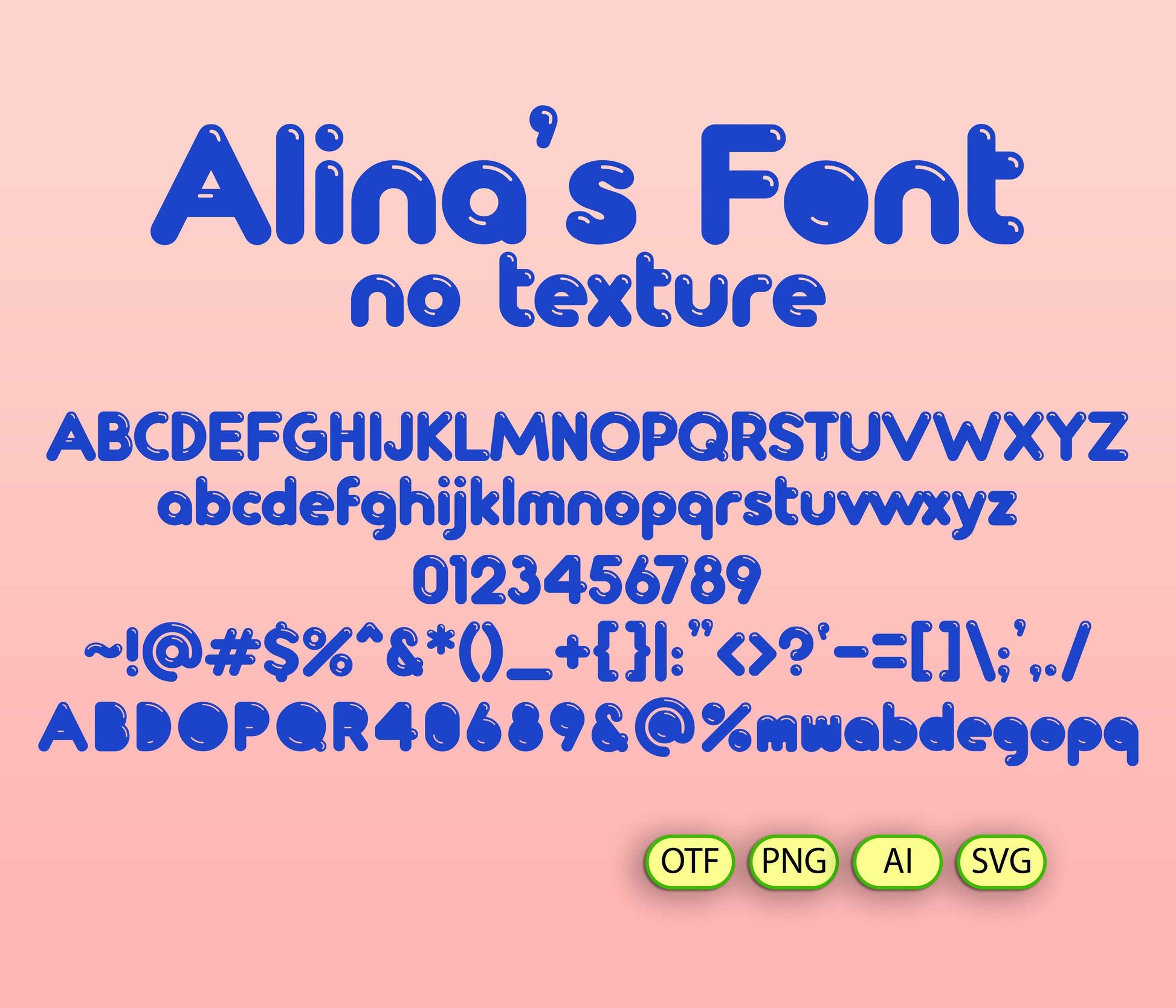
Tuneful Toddler Tales Font
Step into the vibrant, musical world of animated youngsters and their catchy educational journeys with our specially designed font. This typeface embodies the spirit of a hugely popular children's content series that has enchanted young viewers across the globe. Ideal for early childhood educators, parents, and content creators focusing on preschool-aged children, this font infuses the cheerful, melodic essence of sing-along learning into your projects.
What is the Tuneful Toddler Tales font?
Our font is a visual celebration of the bright, bouncy aesthetic that characterizes this beloved animated series. It features round, bubbly letterforms that appear to bounce and sway, as if moving to the beat of a children's song. Each character radiates a perfect mix of playfulness and clarity, perfect for projects aimed at engaging and educating young children through visual appeal.
What You Can Do With Tuneful Toddler Tales Textured Font
This versatile font is suitable for a wide array of creative applications:
- Children's Birthday Invitations: Design delightful invites for toddler birthday parties and playdates.
- Educational Materials: Create worksheets, flashcards, and learning resources for preschoolers.
- Digital Content: Enhance websites, apps, and videos aimed at young children with eye-catching text.
- Merchandise Design: Develop appealing T-shirts, backpacks, and accessories for young fans of the show.
- Nursery Decor: Ideal for wall art, growth charts, and personalized room decorations.
- Children's Books: Perfect for creating engaging titles and text in picture books for toddlers.
- Family-Friendly Event Promotions: Use in marketing materials for events targeting families with young children.
Comprehensive Character Set: Offers a wide range of characters, including musical note alternatives and child-friendly symbols.